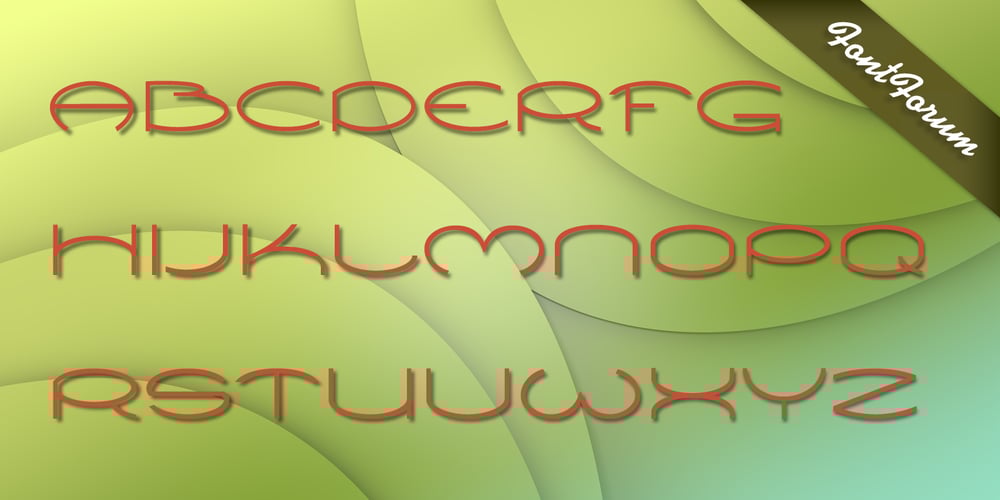
Roundabout Font Family was designed by Marit Angenita Otto and published by URW Type Foundry. Roundabout contains 1 styles and family package options. Roundabout is a typeface that is extracted from an ellipse shape. Each and every character started at the same geometrical figure. By cutting it up in sections, twist and rotate the separate characters could be build. The ellipse provides this typeface with evident and smooth looking features. The name Roundabout is misleading, an ellipse is not round. But the word Roundabout has a nice ring to it and it seems to fit this typeface perfectly. The Roundabout as we know it is a place where the traffic circles. Sometimes in the greater metropoles it jams like clotting veins. Various exits are presented for those who know which way to go, for those who don’t it seems an eternal treadmill. Unlike my typeface, that seems rather careless, light weighted and knows her way around. A roundabout in a child’s mind is a playful carrousel or a merry go round. Merry go round has the sweetest sound and a match is found. My Roundabout is a joyful, optimistic and open typeface, which can be used over and over again for many or any purposes. —– Roundabout ist eine Schrift die aus der Form einer Ellipse entstand. So teilen alle einzelnen Zeichen denselben geometrischen Ursprung. Durch das zerteilen, verdrehen und verflechten der elliptischen Grundform konnten die separaten Zeichen so geformt werden, dass sie einen klaren und weichen Charakter erhielten. Der Name Roundabout scheint auf den ersten Blick etwas irreleitend – ist eine Ellipse ja nicht wirklich rund. Er hat aber einen schönen Klang und doch eine tiefe Verbindung zu dieser Schrift. In unseren Gedanken ist Roundabout ein Kreisverkehr: Manchmal, in großen Städten, kann er blockieren, so wie eine verstopfte Ader. Verschiedenste Auswege zeigen sich denen, die ihr Ziel kennen; für alle anderen erscheint dieser Ort wie eine endlose Schlaufe. Dieses Bild widerspricht dem Auftreten meiner Schrift, welche eher sorglos und leichtfüßig ist; sie kennt ihren Weg. In dem Kopf eines Kindes jedoch ist ein Roundabout ein verspieltes Karussell, ein „merry go round“. ,,Merry go round“ klingt bezaubernd und so fiel die Entscheidung. Meine Roundabout ist eine fröhliche, optimistische und offene Schrift, die immer und immer wieder genutzt werden kann, zu jedem erdenklichen Zweck.